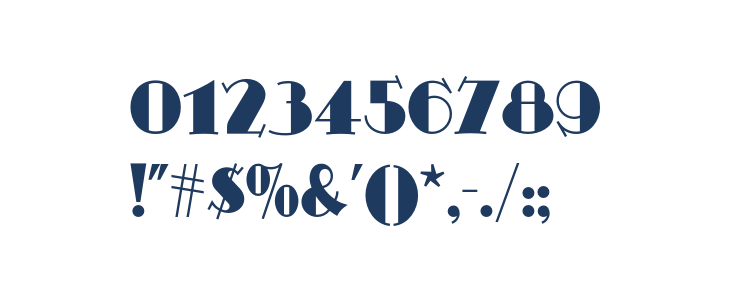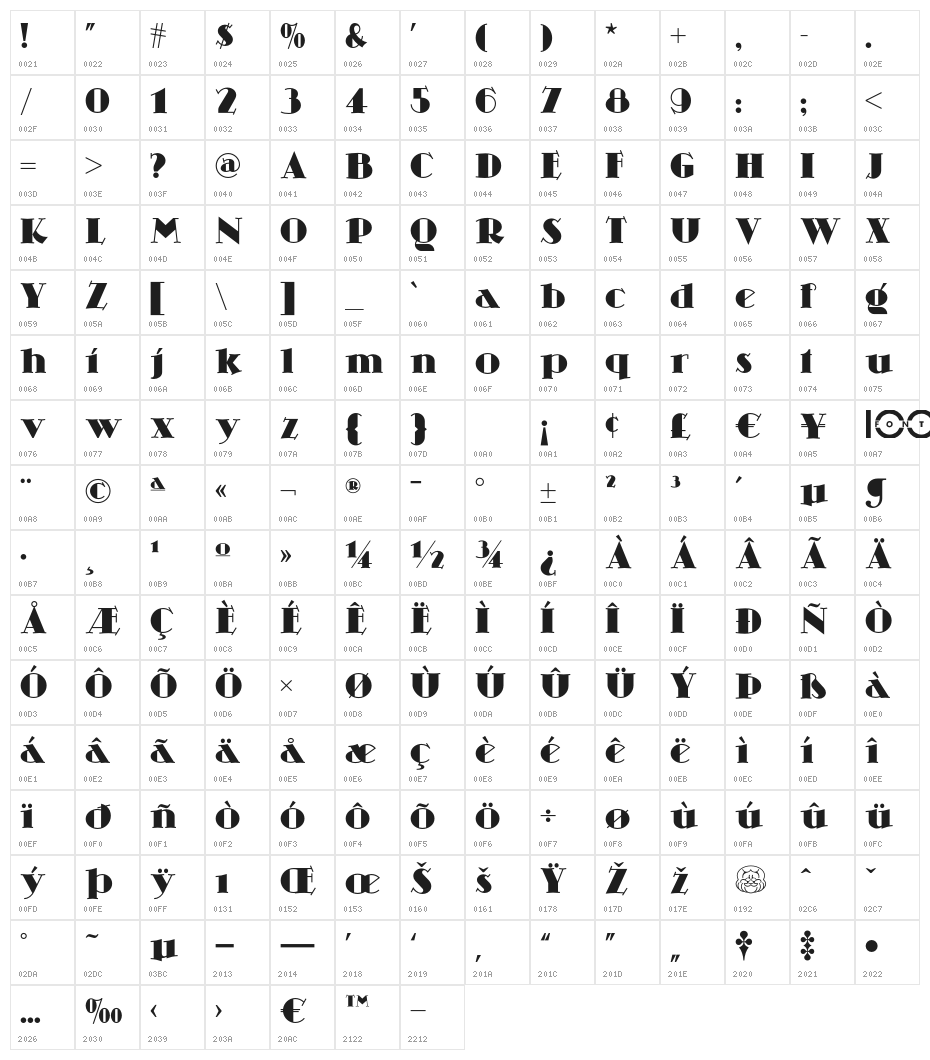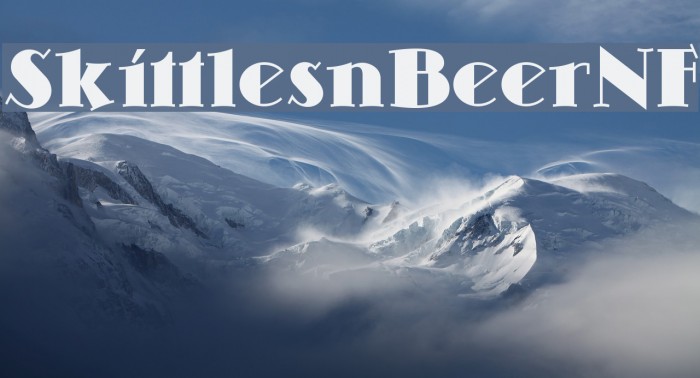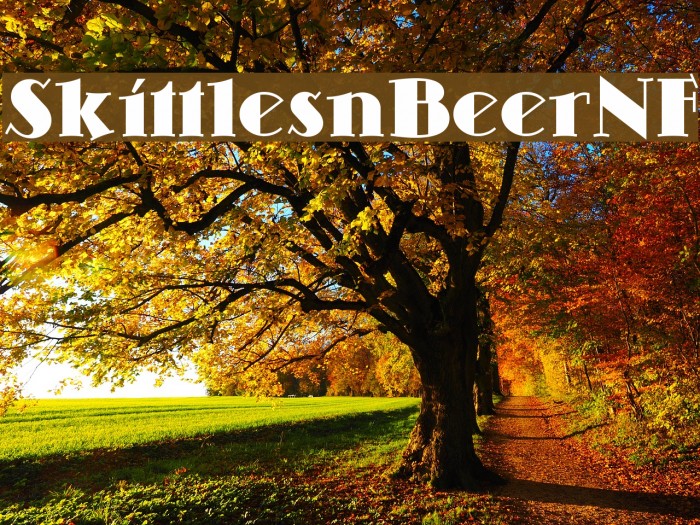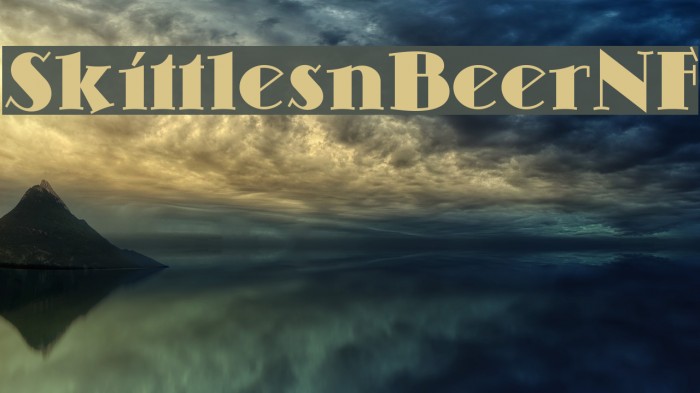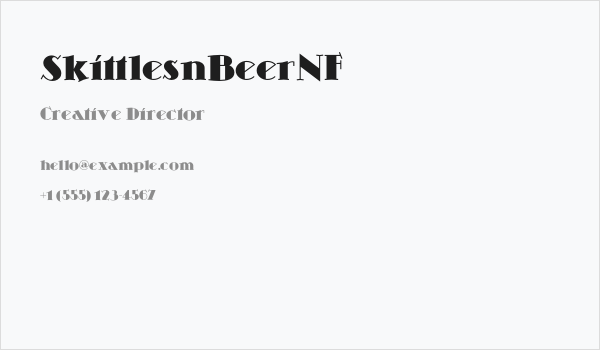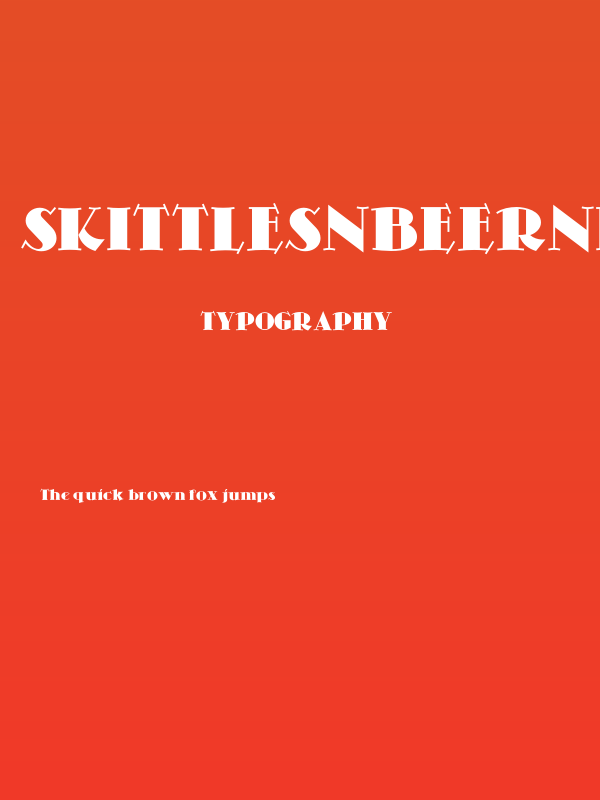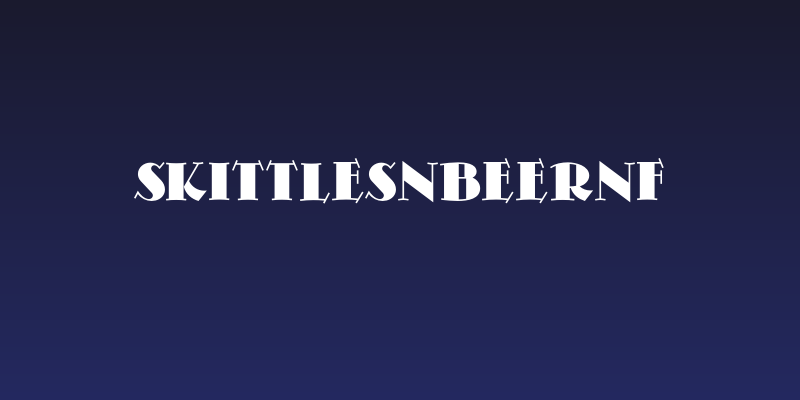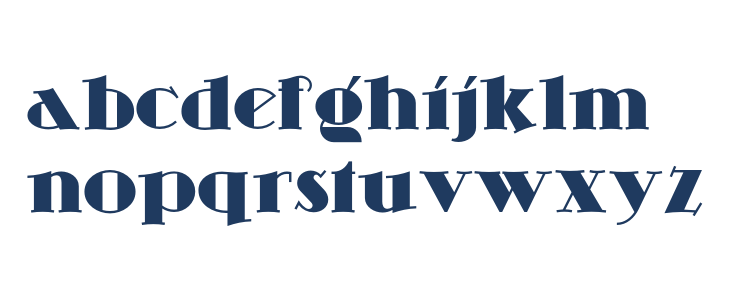
SkittlesnBeerNF Font
SkittlesnBeerNF Description
This font features a bold and dramatic style with high contrast between thick and thin strokes. The characters exhibit a unique flair with sharp, angular serifs and a slightly condensed form. The uppercase letters are particularly striking, with exaggerated serifs that give a sense of movement and energy. The lowercase letters maintain this dynamic style, offering a cohesive look across the alphabet. Numbers and special characters are equally bold, making them stand out. This font is ideal for making a statement and capturing attention.